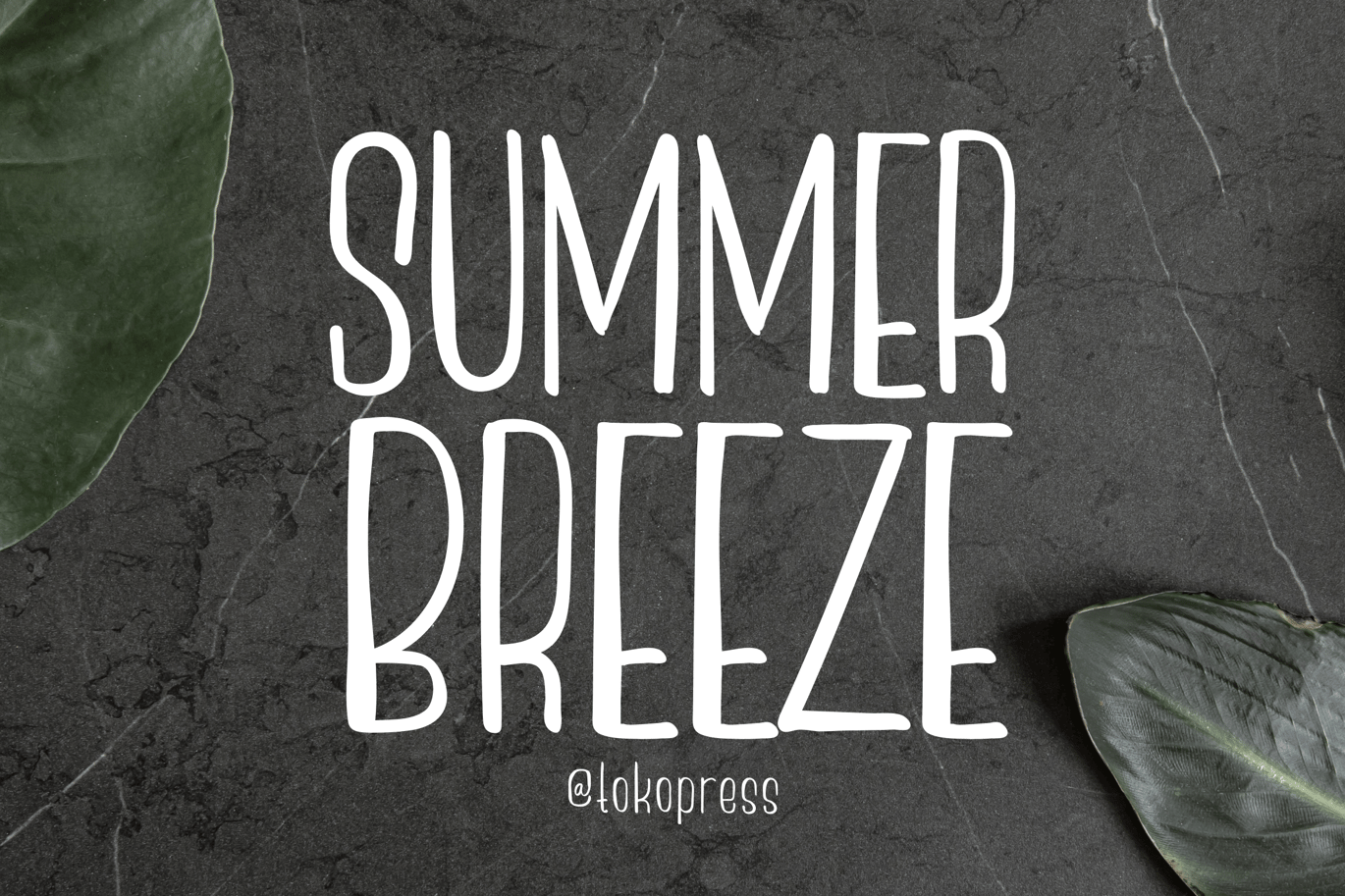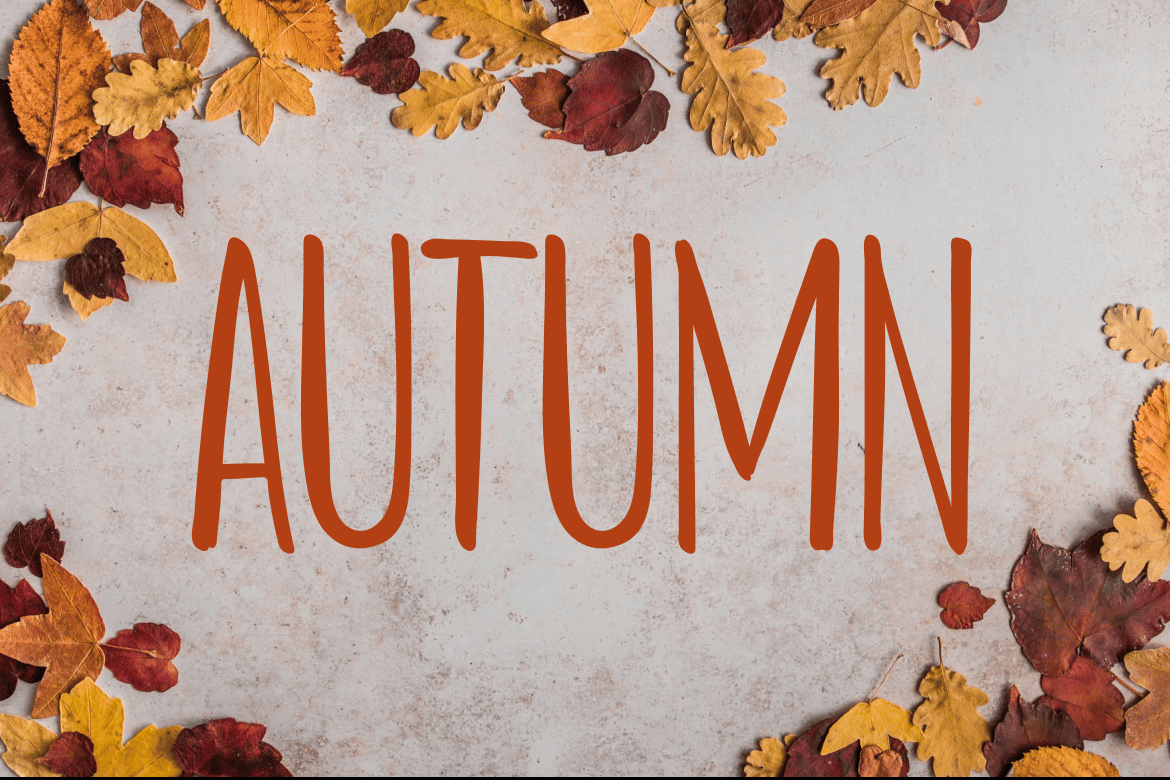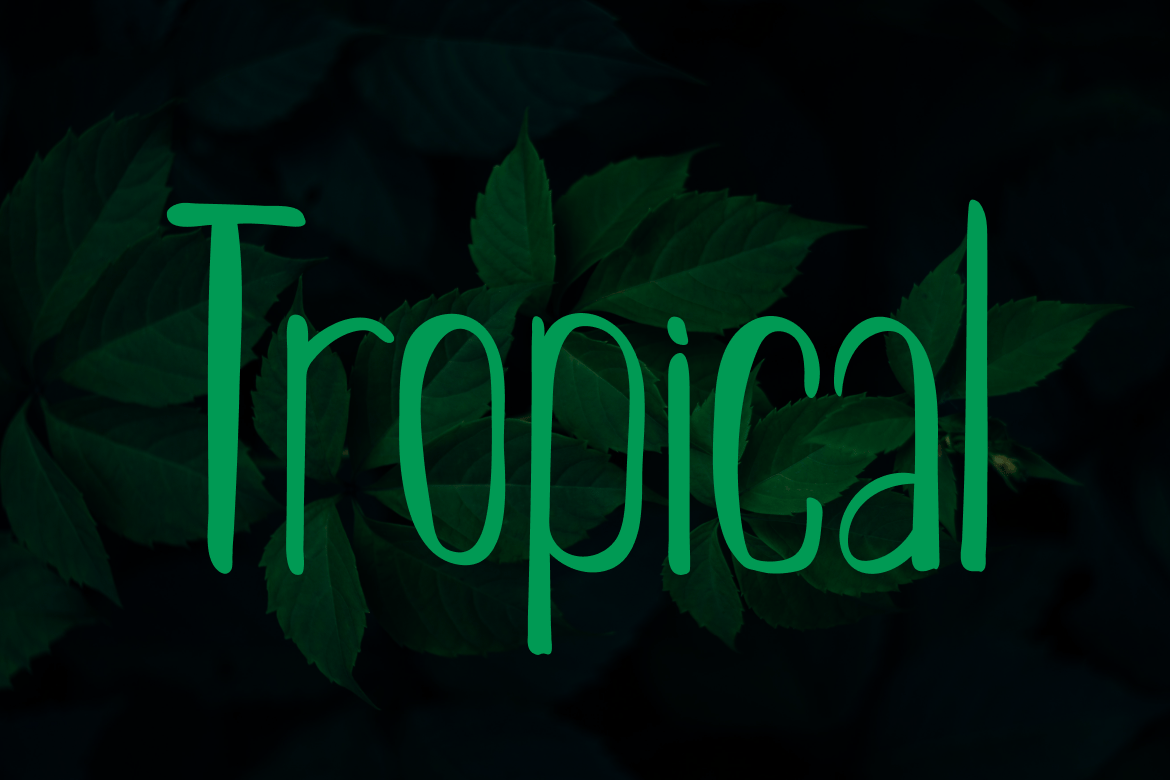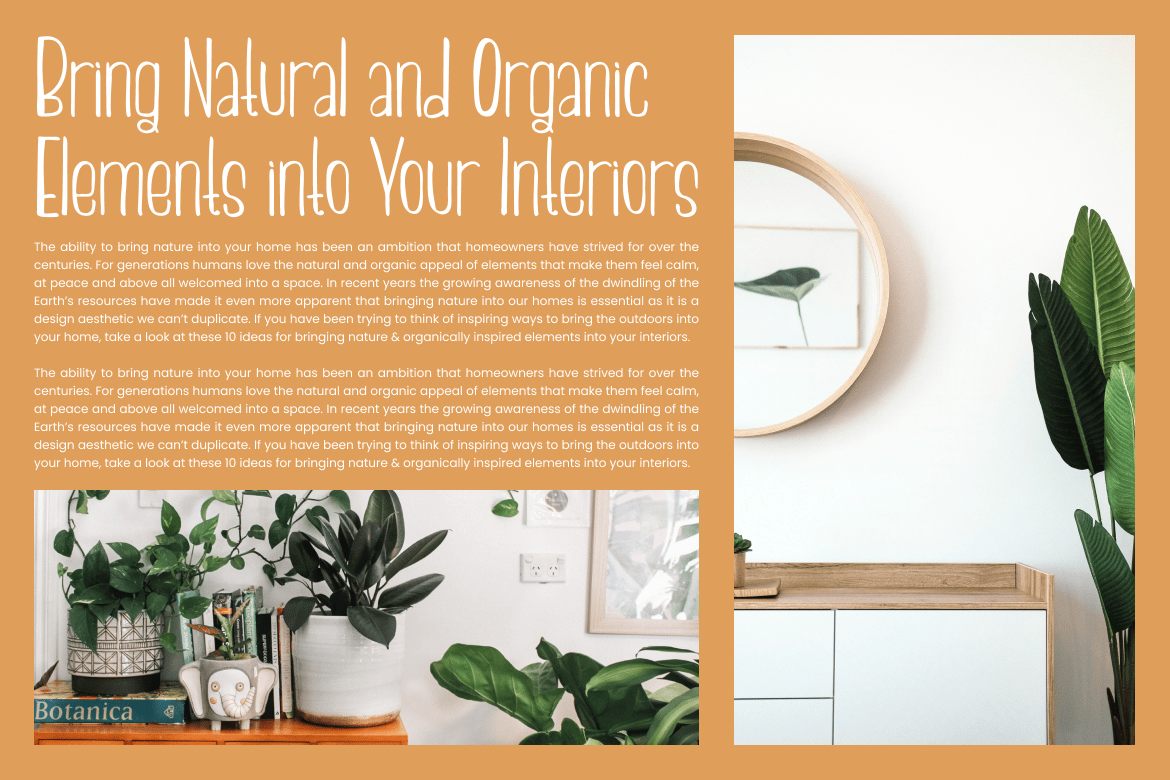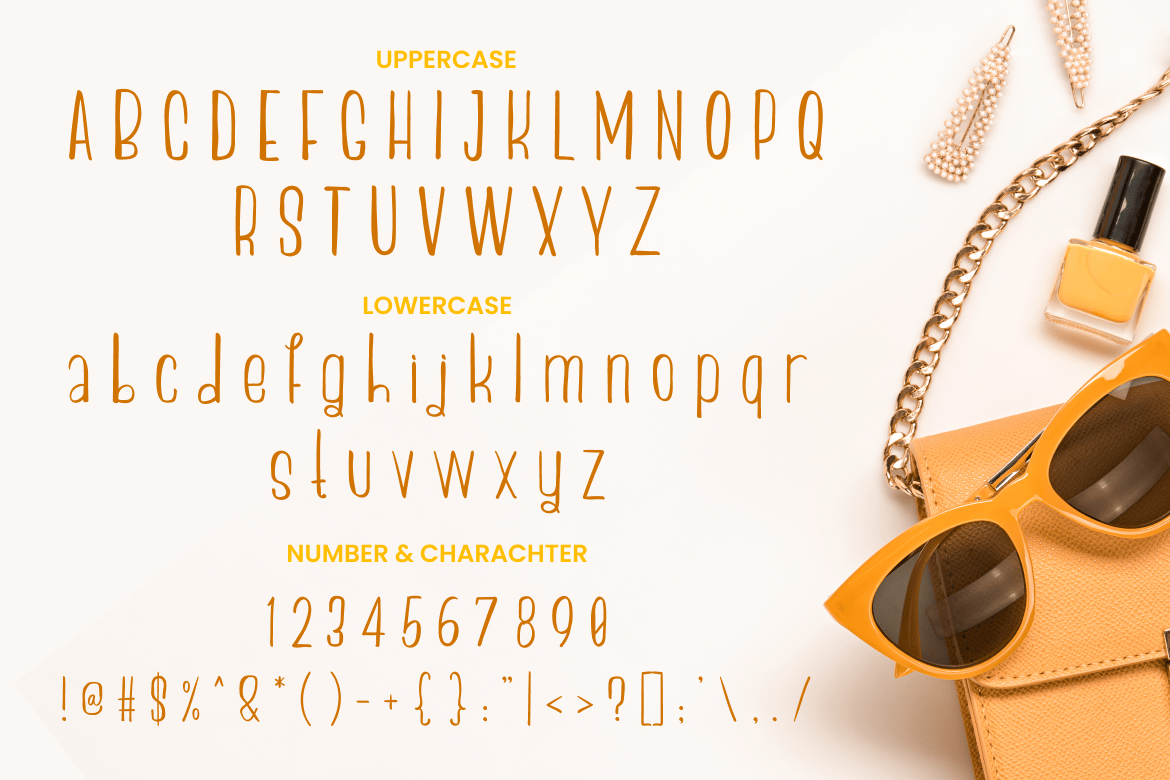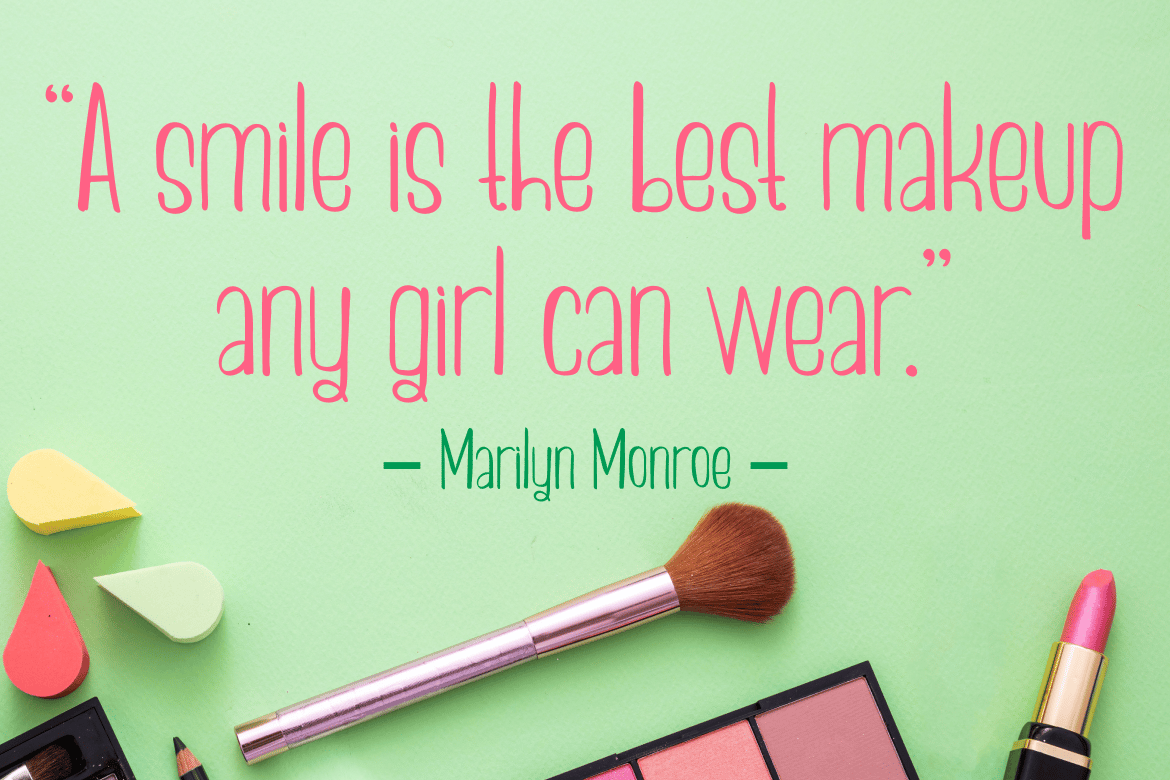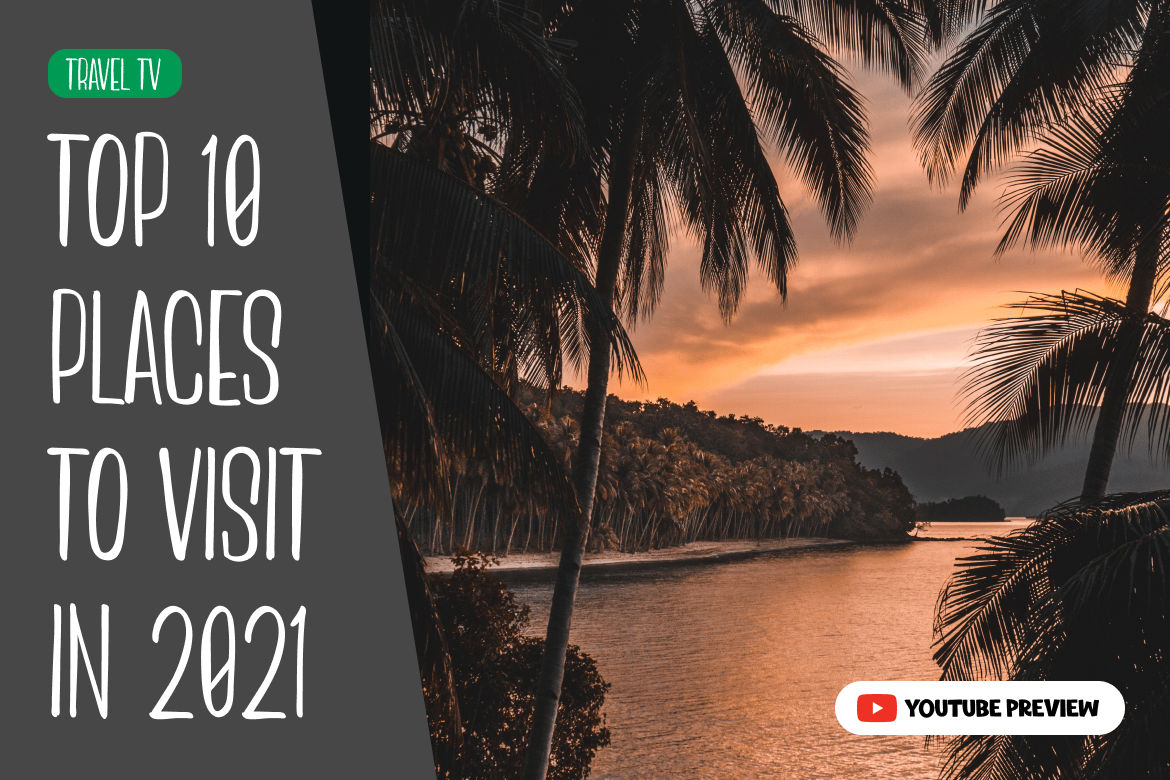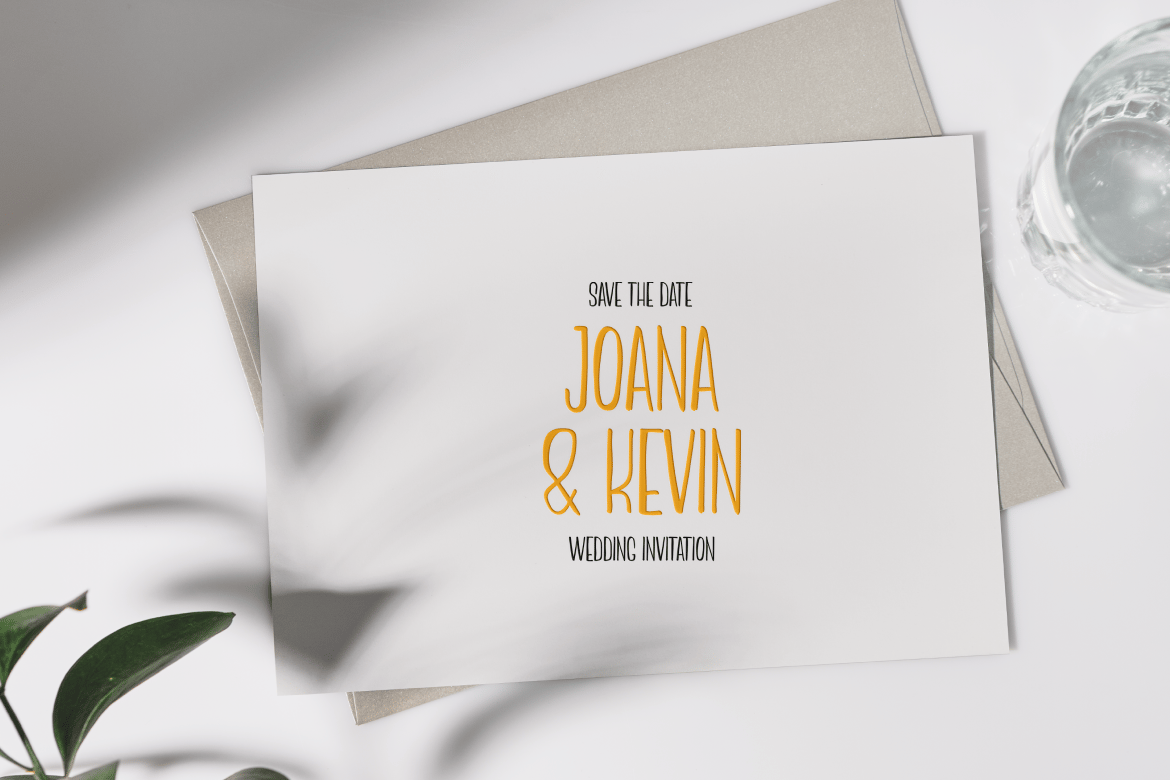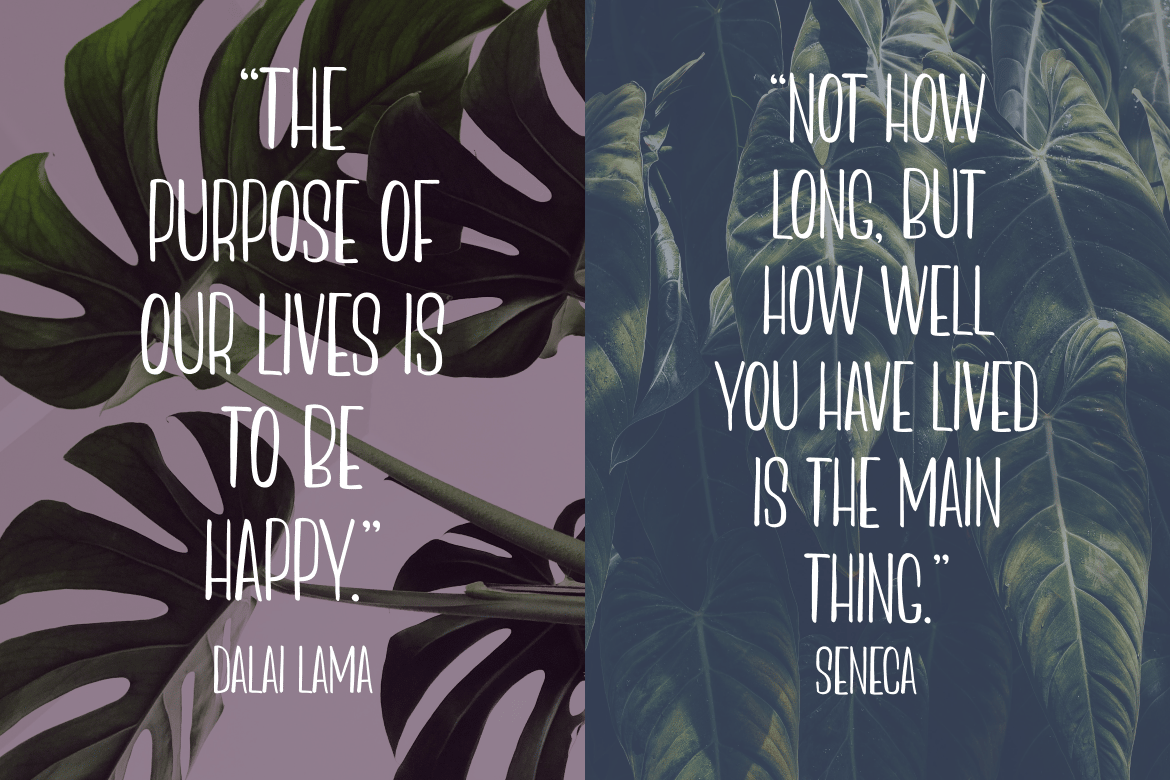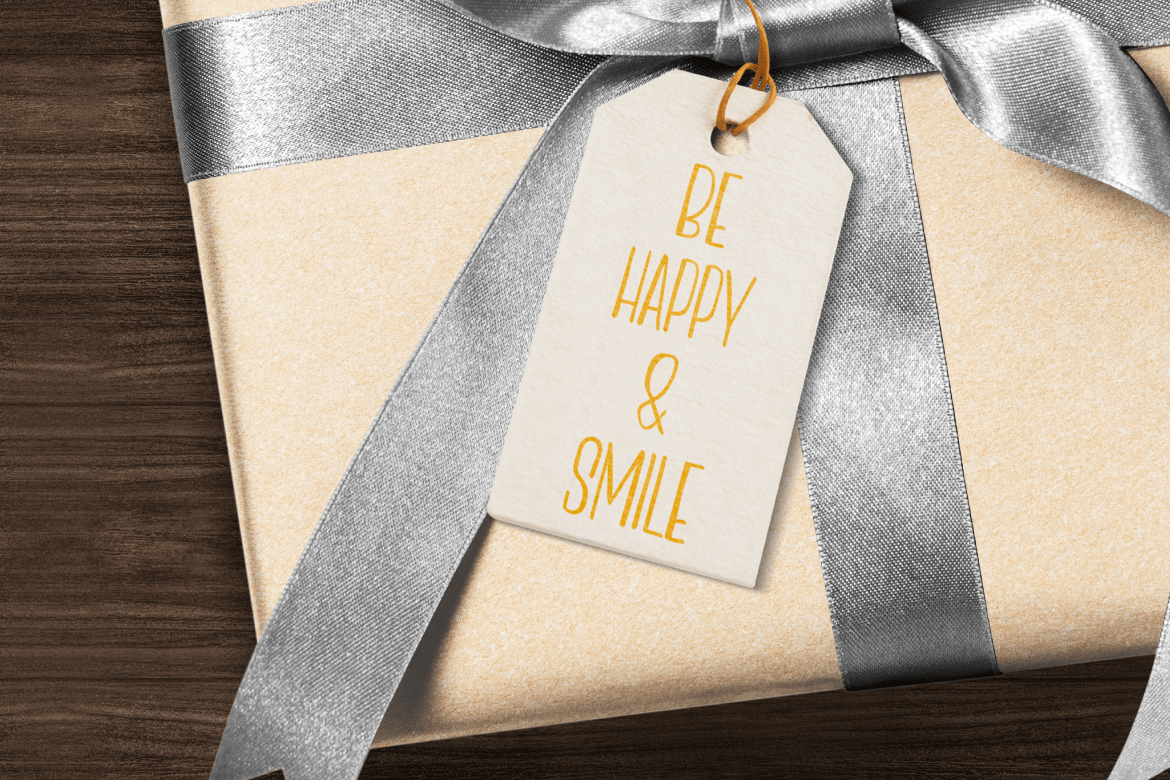
Summer breeze – Girly font
Summer breeze – Cute font
It bring elegance, beauty, and a calming ambience towards the audience, just like summer breeze.
Suit perfectly for female segmented magazine, poster, movie title, music poster, youtube covers, youtube thumbnails, social media page covers and so on…